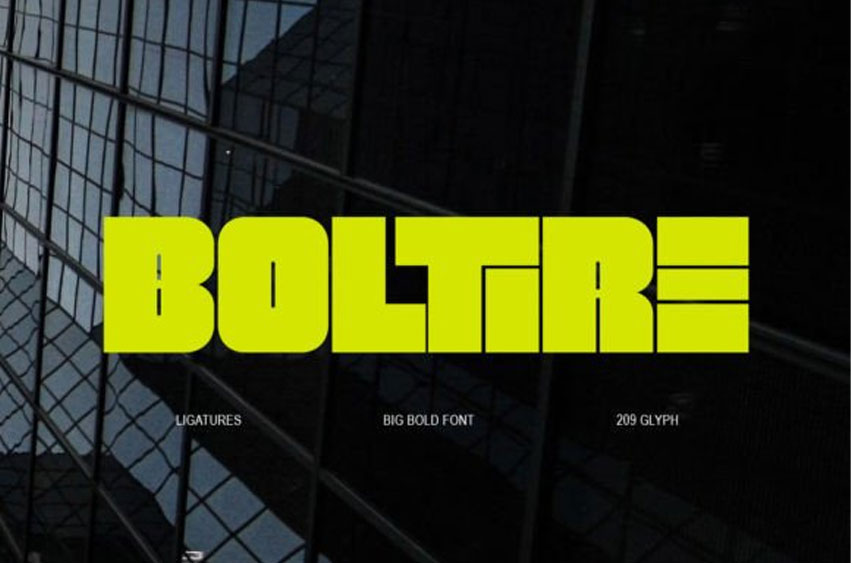
Boltire Font
Boltire Font is a strong, bold, all-caps typeface that features ligatures. It’s ideal for creating impactful headlines and statements. This font works well for posters, quotes, and logotypes.
With its unique lowercase letters and ligatures, you can combine elements to enhance the visual appeal of your designs. Additionally, Boltire supports multiple languages!